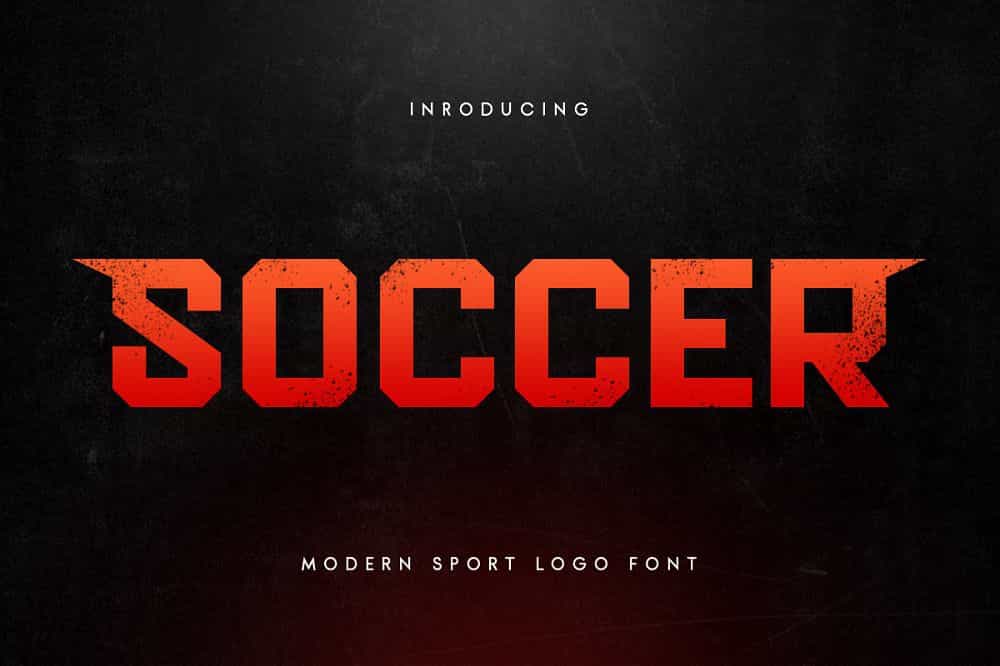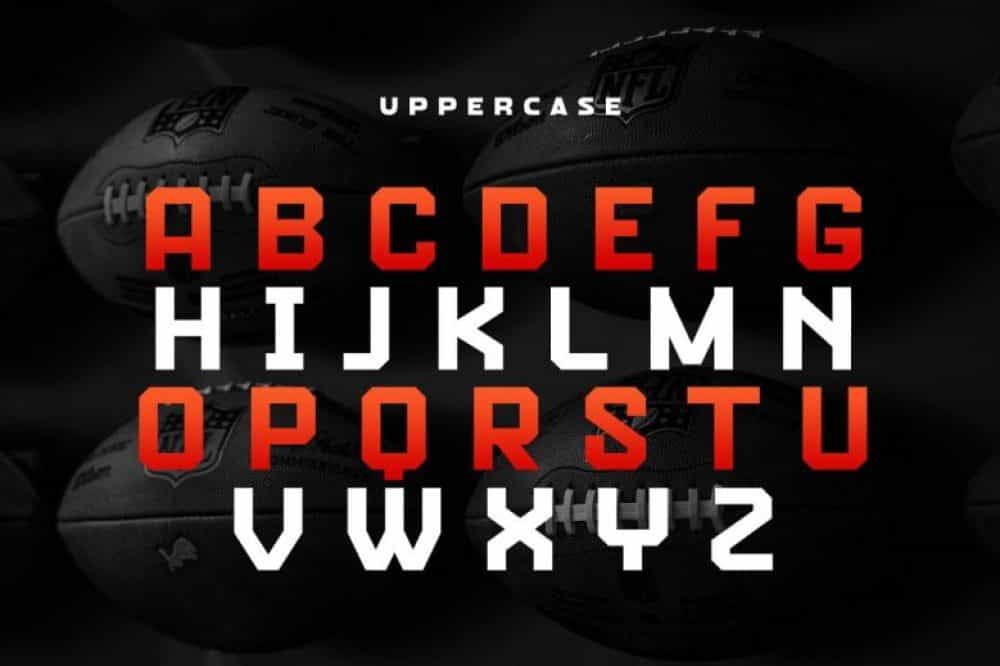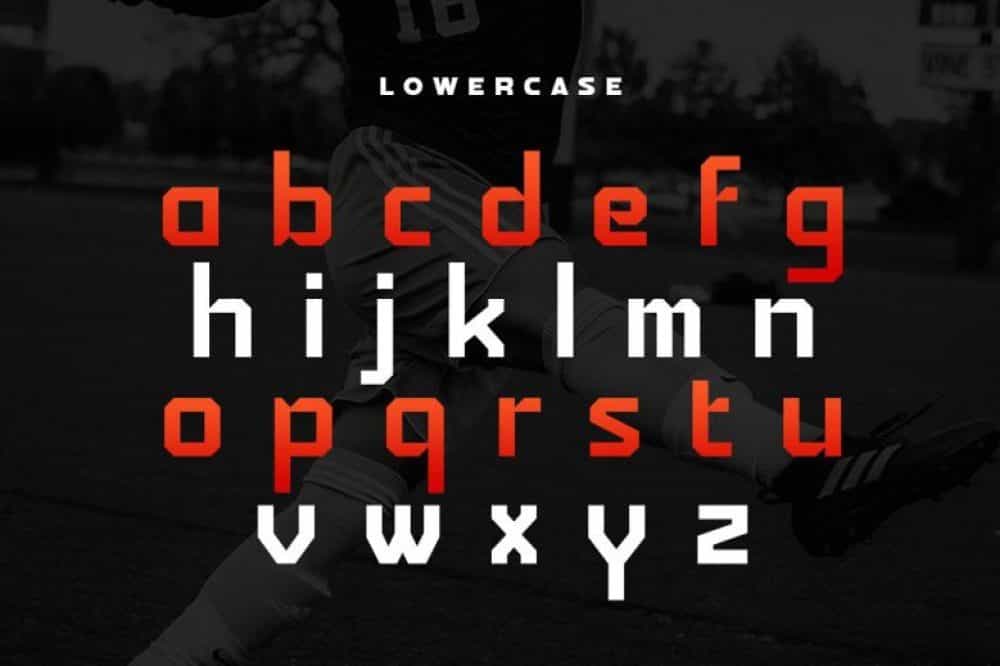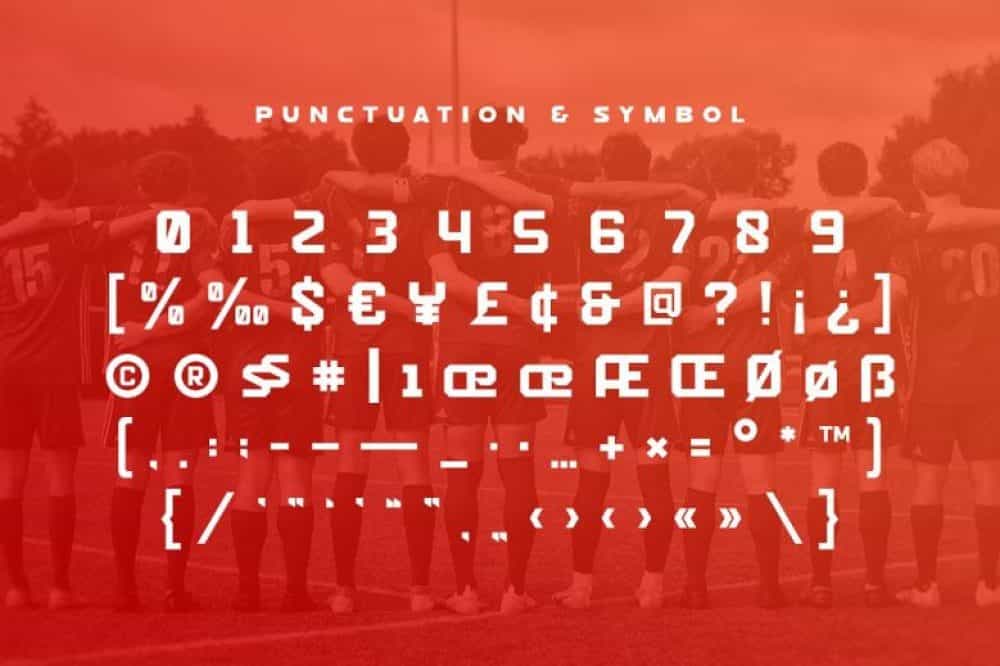
Soccer is a sport display font that is designed for Logo, Title and more stunning word for sport and energetic. It is quite suitable to input your style and headline overview for sport, technology, action, and fighting genres. And especially for this font, we have designed it to portray a bold action style with a touch of modernity and hence you can use it in making any project that will feature your key message.